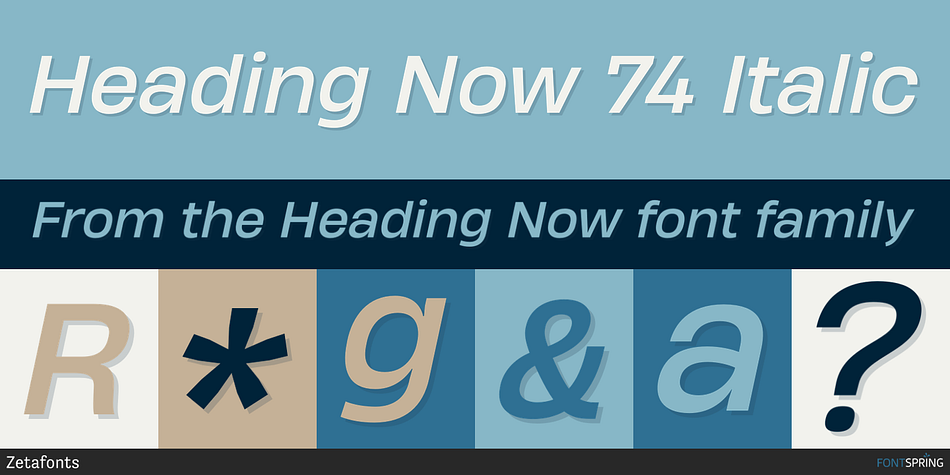
Heading Now 74 Italic
Designed by Francesco Canovaro, Andrea Tartarelli, Cosimo Lorenzo Pancini and Mario De Libero, Heading Now is a sans serif font family. This typeface has one hundred and sixty-two styles and was published by Zetafonts.
Heading Now is the new incarnation of Heading Pro, developing the original typeface family designed by Francesco Canovaro for Zetafonts into a superfamily with 160 variant combinations. Built around 10 different widths, ranging from ultra-compressed to ultra-wide, and eight weights from thin to heavy, Heading Now provides a full spectrum of sans serif type solutions to your design problems.
Born as a space-optimizing typeface for headers and titles, Heading Now can be used in its compressed widths to manage space on the printed page and on the screen. In these widths Heading Now excels in titles and subheadings, timetables, infographics and in situations of exuberant and excessive copywriting. On the other side of the width spectrum, you can find extended width variants, ready to be used for titling where style and energy matter more than pixel or paper economy.
Heading family is not only made of extreme widths: you can use the medium width range to design body text. Matching italics provide versatility in text use, as well as a dynamic display alternate to the bolder weights.
Heading Now keeps the original design of Heading, but extends the width and weight range while keeping its (post) modernist attention to readability and details. Each Heading Now font includes over 1100 characters with coverage for 200+ languages using Latin, Cyrillic and Greek alphabets. A full array of open-type features is included in each weight featuring also stylistic alternates, small caps, old-style and tabular numerals and positional figures.
• Suggested uses: born as a space-optimizing typeface for headers and titles, Heading Now can be used in its compressed widths to manage space on the printed page and on the screen. Perfect for contemporary branding, web design, packaging and countless other projects;
• 162 styles: 8 weights + 8 italics x 10 different widths + 2 variable fonts;
• 1100 glyphs in each weight;
• Useful OpenType features: Access All Alternates, Small Capitals From Capitals, Case-Sensitive Forms, Glyph Composition / Decomposition, Denominators, Fractions, Kerning, Standard Ligatures, Lining Figures, Localized Forms, Mark Positioning, Mark to Mark Positioning, Numerators, Oldstyle Figures, Ordinals, Proportional Figures, Stylistic Alternates, Scientific Inferiors, Small Capitals, Stylistic Set 1, Stylistic Set 2, Stylistic Set 3, Stylistic Set 4, Subscript, Superscript, Tabular Figures, Slashed Zero;
• 220 languages supported (extended Latin, Cyrillic, Greek alphabets):